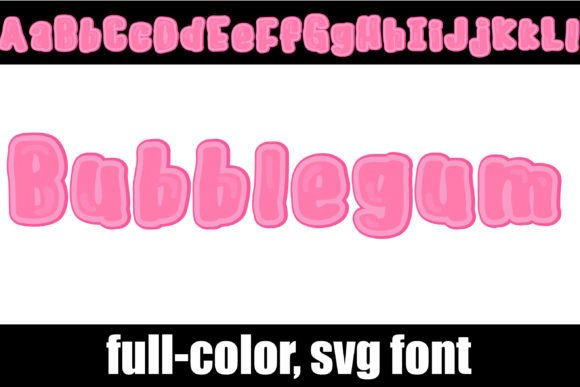
The Sweet Spot: Discovering the Bubblegum Font
I’ll never forget the time I was working on a fun project for a client’s birthday party invitations. I wanted to create something that captured the playful, carefree spirit of childhood, but I was struggling to find the perfect font. That’s when I stumbled upon the Bubblegum Font, and it was love at first sight! 💕 This full-color font features pink bubblegum-like lettering that’s sure to bring a smile to anyone’s face. In this article, I’ll share my experience with the Bubblegum Font, its features, and how to make the most of it in your designs.
• ✨ Versatility: The Bubblegum Font is a full-color SVG font, making it perfect for a variety of projects, from digital designs to print materials.
• ✅ High-quality: The font is meticulously crafted, with crisp lines and a smooth, bubblegum-like texture.
• 🎉 Fun and playful: The Bubblegum Font is sure to add a touch of whimsy and fun to any design.
While the Bubblegum Font is an excellent choice for many projects, there are a few things to keep in mind:
• 🤔 Color limitations: As a full-color font, it may not be suitable for projects that require a specific color scheme or single-color designs.
• ⚠️ File size: The font file may be larger than expected, which could impact loading times or storage space.
The Designer Inspiration Behind the Bubblegum Font
The Bubblegum Font was inspired by the classic pink bubblegum that brings joy to people of all ages. The designer behind this font wanted to capture the fun, carefree spirit of childhood and create a font that’s perfect for designs that need a playful touch.
Q: Is the Bubblegum Font suitable for body text?
A: While the Bubblegum Font is perfect for headlines and titles, it may not be the best choice for body text due to its playful, decorative nature.